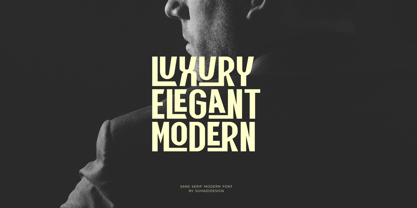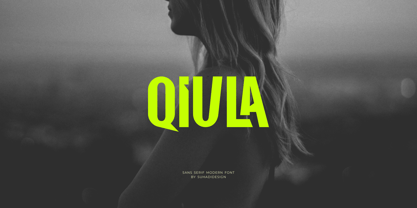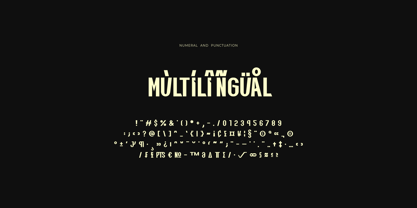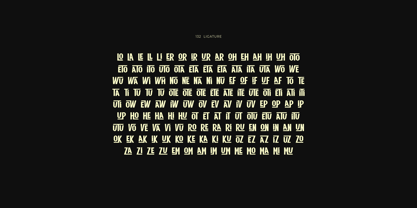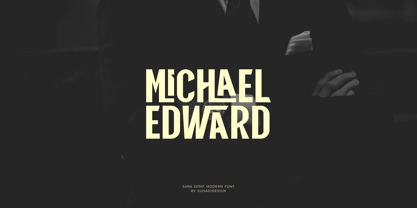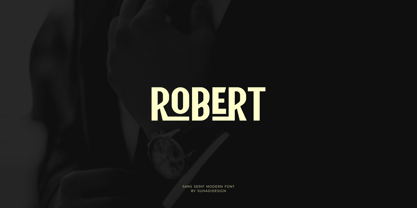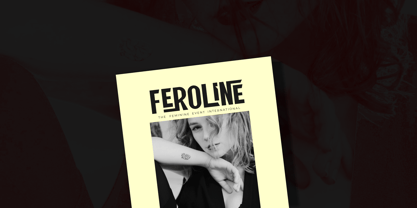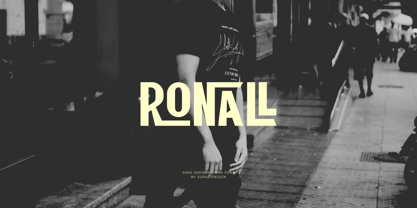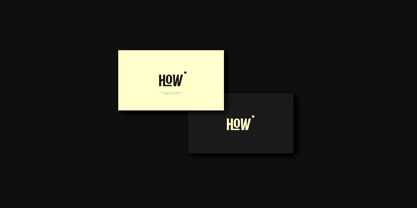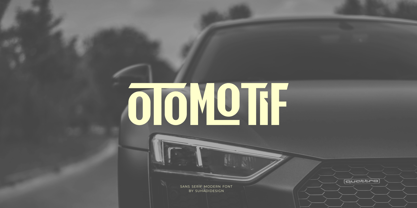
Qiula
La famille de polices Qiula a été conçue par ahmad suhadi et publiée par suhadidesign. Qiula contient 1 styles.
Qiula - Modern Sans Serif Font
In response to market demand, I created a minimalist sans serif font that is modern, elegant, and cool. Therefore, I decided to create this sans serif font. Qiula is a modern sans serif font with 132 ligatures, presented in a modern style, hoping to become a market favorite. We've kept this font elegant, classy, modern, stylish, up-to-date, and easy to use. Qiula is a great choice for logos, labels, fashion, posters, banners, bags, branding, brand names, quotes, and other projects. Qiula is here to take your designs to the next level.
Font Features:
Modern font
• All capital letters
• 132 ligatures
• Multilingual support
• Numbers and punctuation